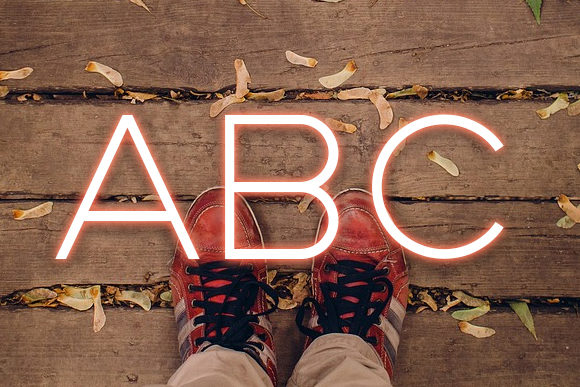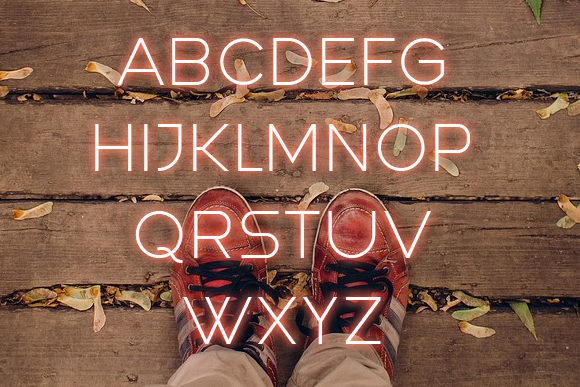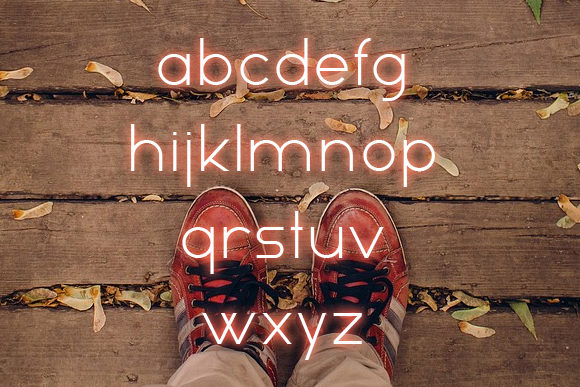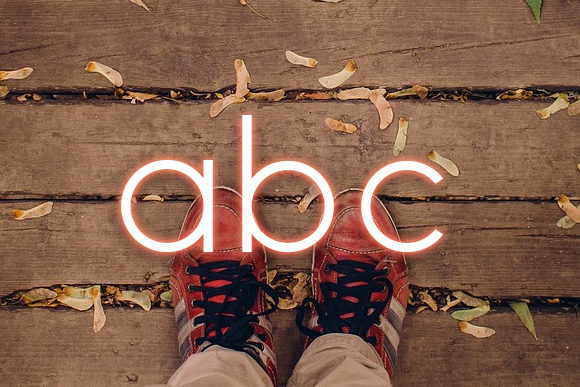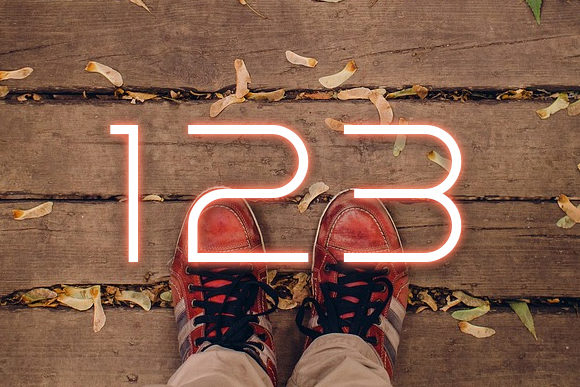
Introduction to Samara Font
You’ve spent hours staring at your computer screen, trying to find the perfect font to elevate your creative project. The cursor blinks impatiently as you scroll through font options, but none seem to capture the essence you’re looking for. And then, it hits you – the perfect font that brings your design to life.
Meet the Samara Font, a timeless sans serif font that adds a unique touch to any project. Its clean lines and high-quality design make it a valuable resource for designers. Whether you’re working on a logo, brochure, or website, the Samara Font is sure to inspire your creativity and leave a lasting impression.
Key Features of Samara Font
- Samara Font comes in 6 styles, each with a unique characteristic that can be used to add depth and variety to your design.
- Designed with a modern and sleek aesthetic, making it perfect for use in digital design, branding, and advertising.
- Each font style is available in 3 different weights, allowing for a range of options to suit your design needs.
Honest Review: Samara Font
I recently had the chance to work with the Samara Font for a creative project, and I was pleasantly surprised by the results. As a designer, I’m always on the lookout for high-quality design resources that can elevate my work. The Samara Font definitely delivers.
Here are some of the things that work well with the Samara Font: ✨
- High-quality design: The font is crisp and clean, making it perfect for both digital and print projects.
While the Samara Font is a great design resource, there are a few limitations to keep in mind: ⚠️
- Limited character set: The font only includes a basic set of characters, which may not be suitable for more complex projects.
- No support for custom styles: While the font is high-quality, it doesn’t offer the same level of customization as some other fonts.
Overall, I’m impressed with the Samara Font and would definitely recommend it to other designers. With its high-quality design and transparent background, it’s a great addition to any design resource library.
Tips for Getting the Most Out of the Samara Font
To get the most out of the Samara Font, use it in conjunction with other high-quality design resources. Experiment with different font sizes, colors, and combinations to create unique and eye-catching designs. Also, make sure to save your designs with a transparent background to ensure that they can be used in a variety of contexts.
Common Use Cases for the Samara Font
The Samara Font is ideal for use in a variety of creative projects, including logos, branding materials, and graphics. It’s also a great choice for designers who want to create high-quality, professional-looking documents and presentations with a transparent background.
What is the recommended usage for the Samara Font in a design project?
The Samara Font is a high-quality design resource suitable for a wide range of creative projects, including branding, packaging, and editorial design. We recommend using it in conjunction with other high-quality design elements to create a cohesive and visually appealing design.